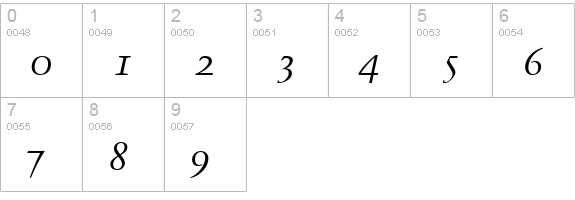
Blackford OldStyle SSi Normal Font Details
Blackford OldStyle SSi Normal is the standard, neutral variant in the Blackford typeface family \xE2\x80\x94 well suited to general body text, paragraphs, and standard typographic work.
Blackford OldStyle SSi Normal font is a classic and elegant typeface that exudes sophistication and timelessness. With its refined serifs and balanced letterforms, this font is perfect for conveying a sense of tradition and authority in your designs. The clean lines and subtle curves of Blackford OldStyle SSi Normal make it a versatile choice for a wide range of projects, from formal invitations to professional documents. The best part? Blackford OldStyle SSi Normal font is available for free download at FontsMarket.com. This means you can easily access this high-quality typeface without any cost, making it a valuable addition to your font library. Whether you're a designer looking for a reliable serif font or a business professional in need of a polished typeface for your communications, Blackford OldStyle SSi Normal has you covered. Download it today and elevate your projects with the timeless charm of this beautiful font.